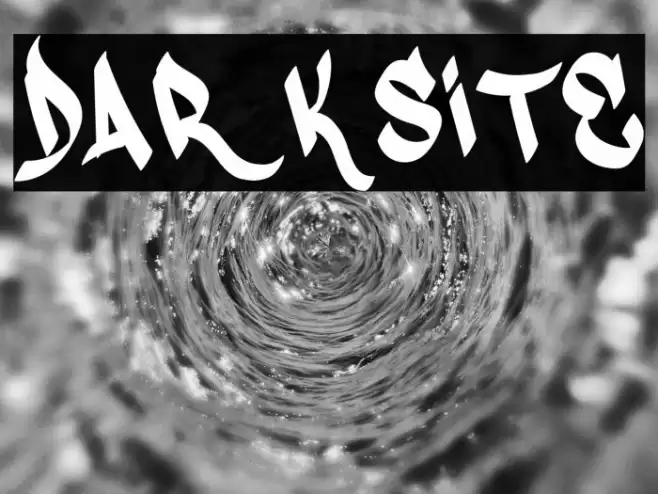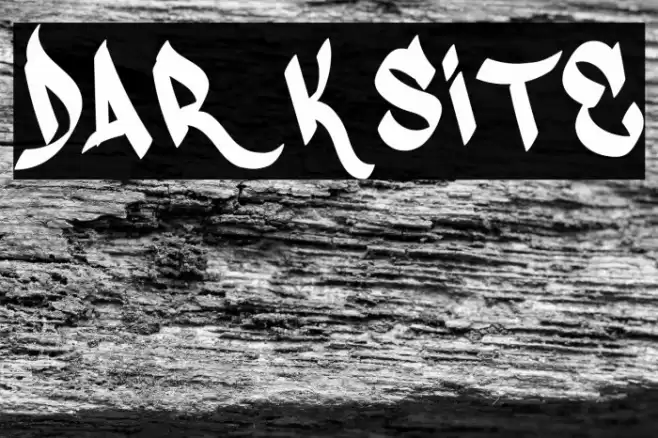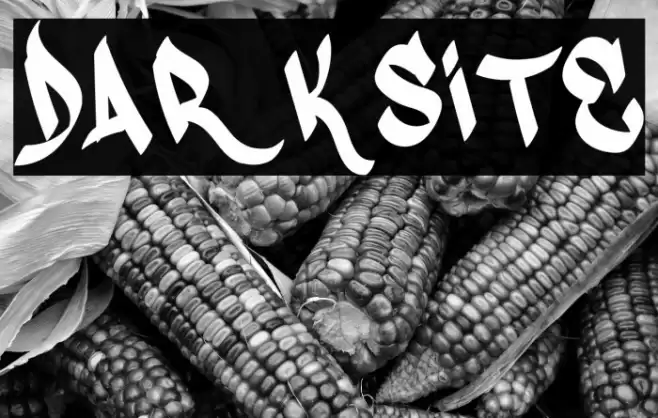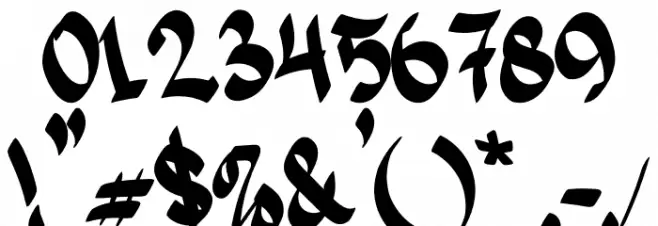
Darksite Font
Darksite Description
This font features a bold and dynamic style with a strong calligraphic influence. The characters are crafted with thick strokes and sharp edges, giving it a dramatic and expressive appearance. The uppercase and lowercase letters maintain a consistent flow, while the numerals and special characters complement the overall aesthetic. Its unique design makes it stand out, ideal for projects that require a touch of artistic flair. The font's boldness and intricate details make it suitable for creative and impactful designs.
A bold, calligraphic font with dramatic strokes and sharp edges from Uncategorized fonts.
- Proposed Projects: Ideal for posters, album covers, branding, and artistic projects requiring a bold statement.